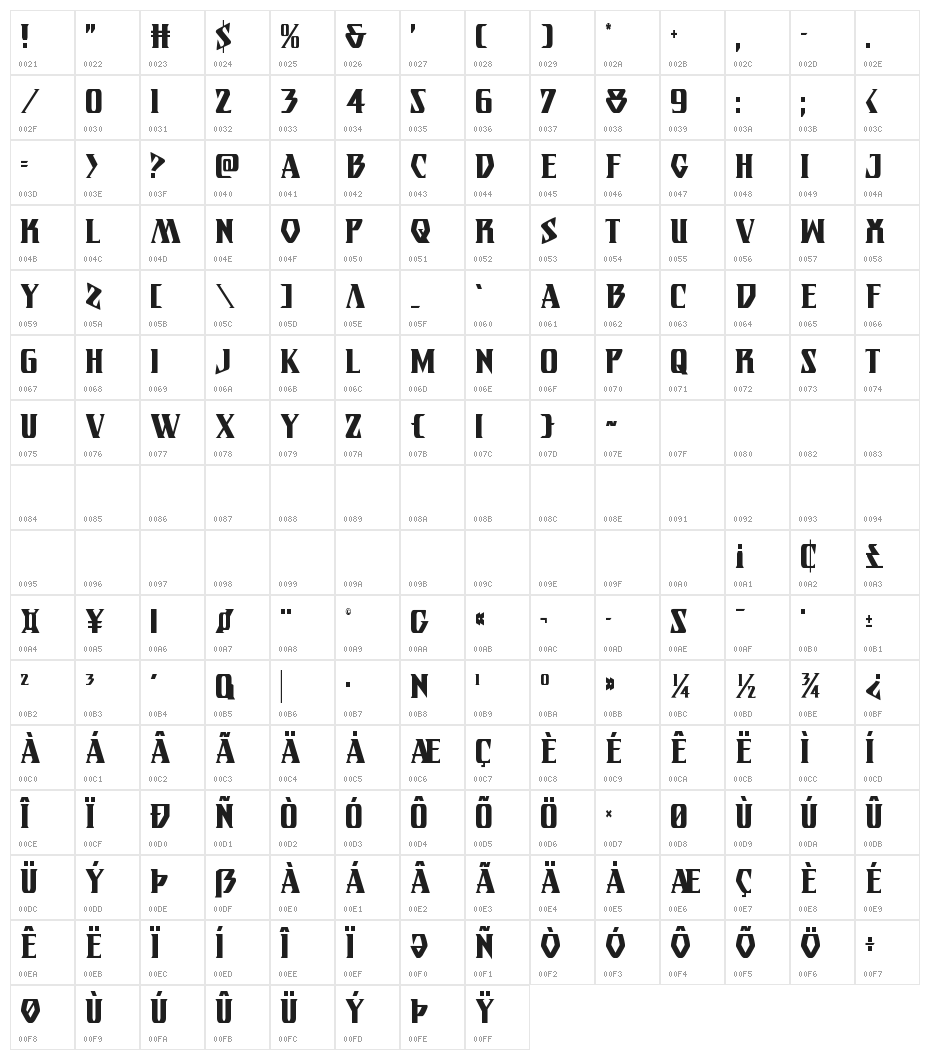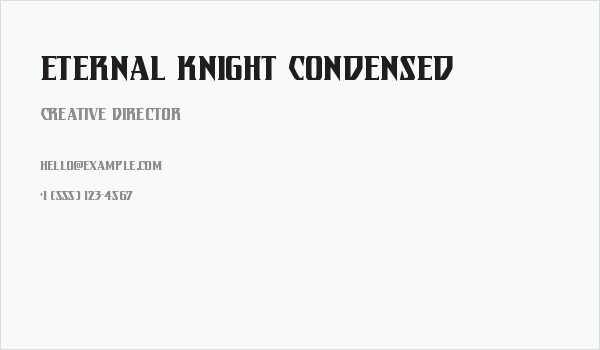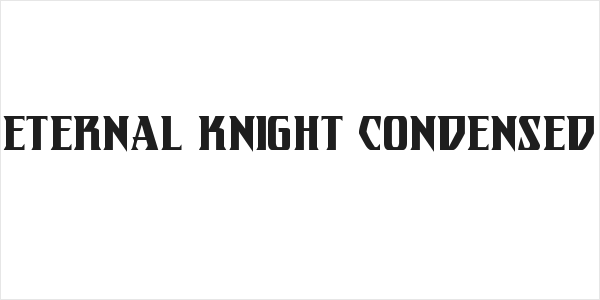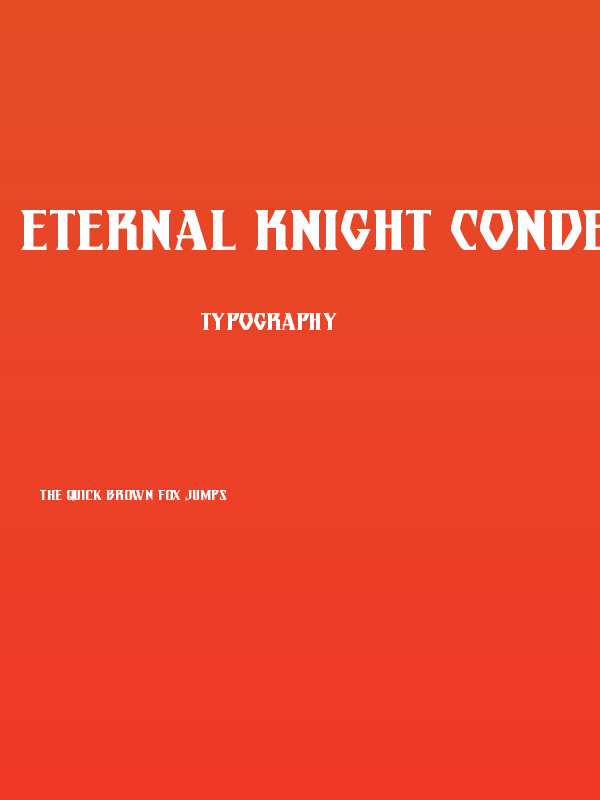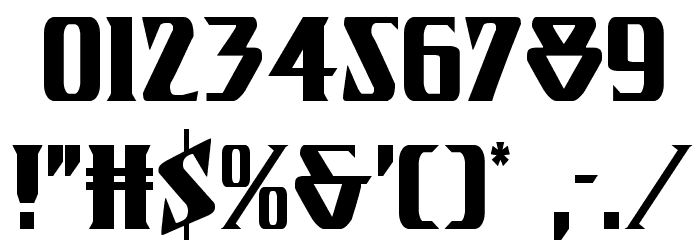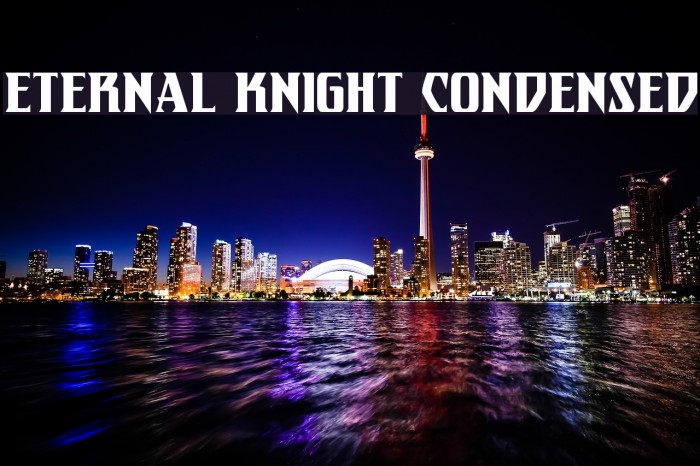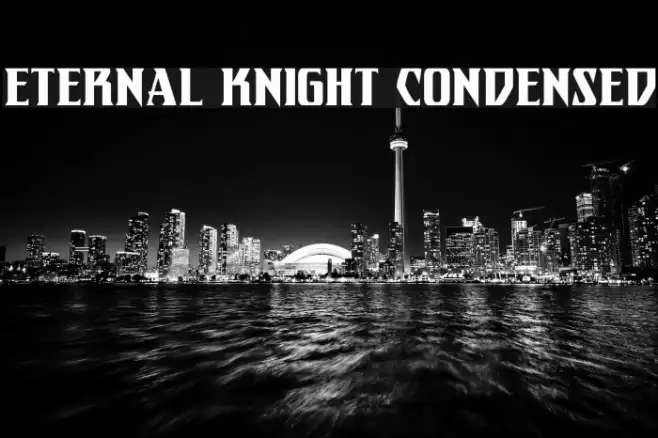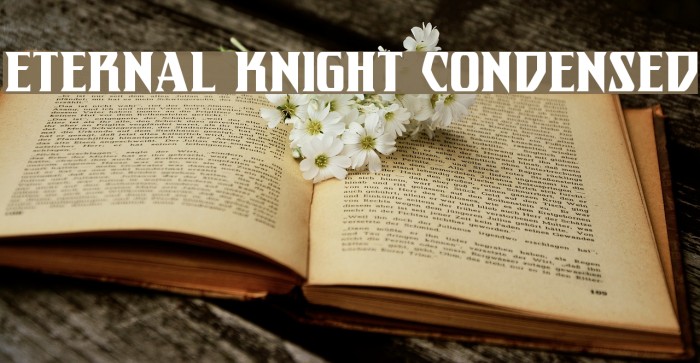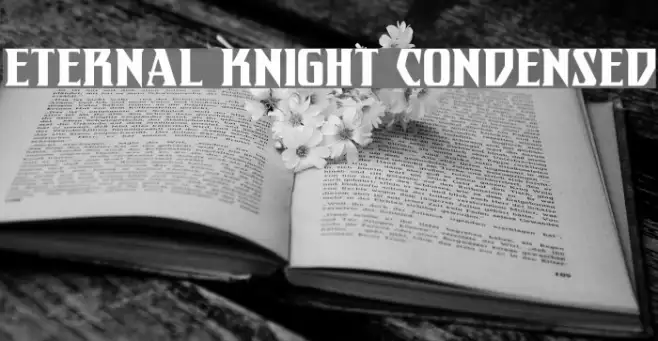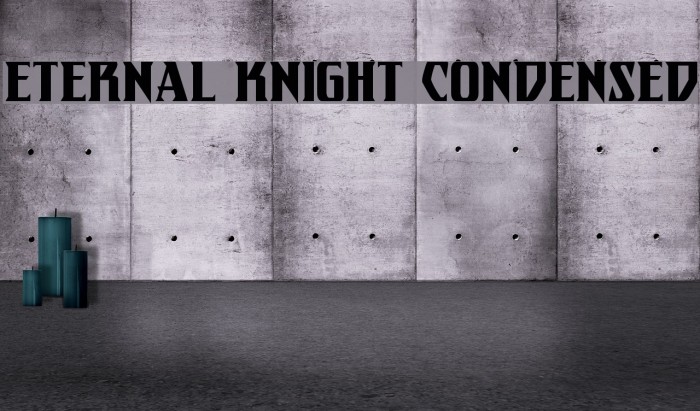
Eternal Knight Condensed Font
Eternal Knight Condensed Description
This font features a bold and striking design with sharp, angular edges and a condensed structure. The uppercase letters are particularly prominent, showcasing a medieval or gothic influence with a modern twist. The characters are tightly spaced, enhancing the compact and powerful appearance. The numbers and special characters maintain the same bold style, ensuring consistency across all elements. This font's unique style makes it suitable for projects requiring a strong visual impact.
| Overall Style | Modern Gothic |
| Proposed Projects | Ideal for posters, logos, video game titles, and any design needing a bold, medieval aesthetic. |